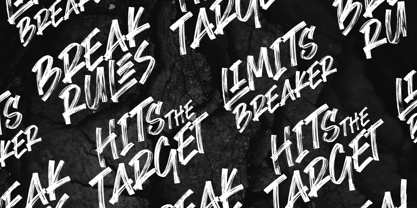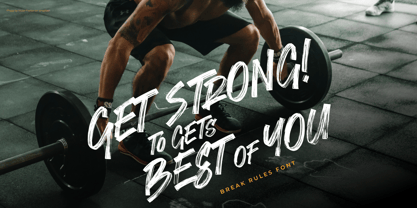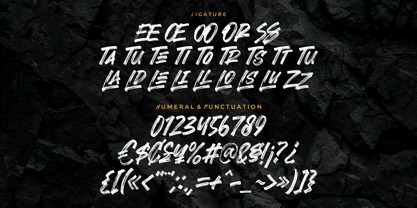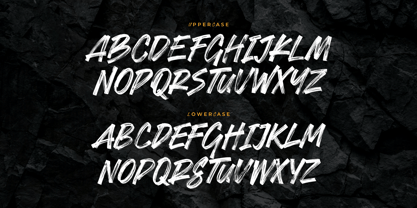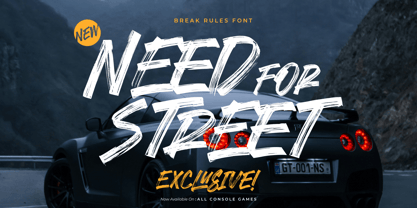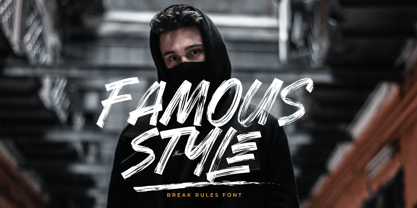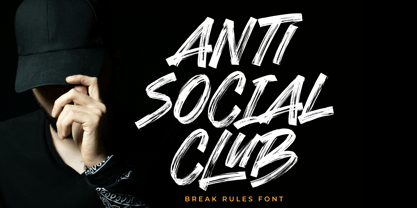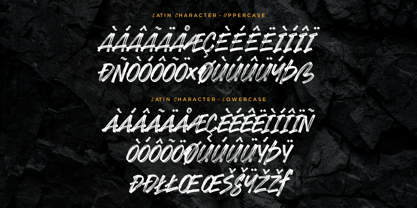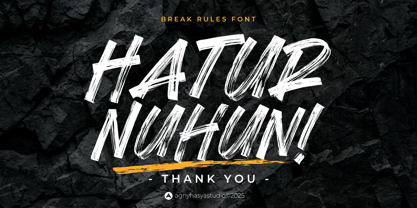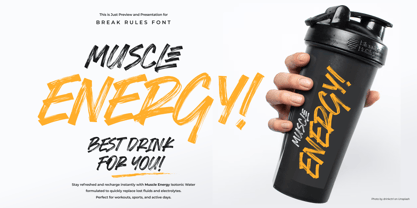
Break Rules
by Agny Hasya Studio
The Break Rules Font Family was designed by Firman Maulana and published by Agny Hasya Studio. Break Rules contains 2 styles and family package options.
Break Rules is a bold and energetic brush script font created with passion and wild imagination.
Featuring rough textures, expressive swashes, also packed with OpenType features, including 25+ custom ligatures for extra flair and flexibility.
Designed for bold and daring design needs, Break Rules delivers high impact across logos, branding, titles, t-shirts, apparel, websites,
and all types of print and digital media. Every stroke is infused with freestyle movement inspired by brush lettering, street art,
and urban culture, making this font the perfect choice for any creative projects that demand a punch of personality and style.
Designers: Firman Maulana
Publisher: Agny Hasya Studio
Foundry: Agny Hasya Studio
Design Owner: Agny Hasya Studio